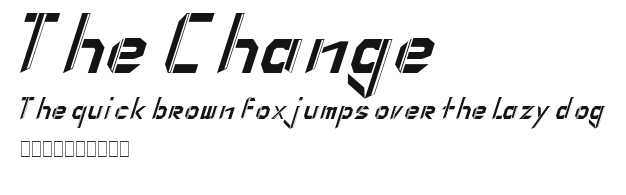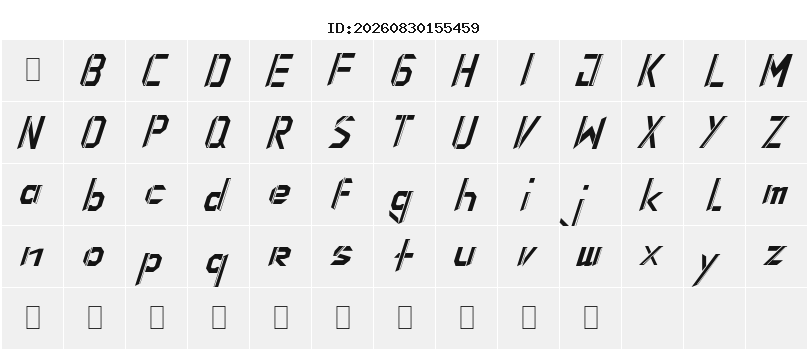
The Change Preview
• Font Name: The Change
• Font ID: The Change Italic:Version 1.00
• Full Font Name: The Change Italic
• Version: Version 1.00 April 14, 2016, initial release
• PostScript Name: TheChange-Italic
• Designer: Jorge Perez
• Manufacturer: LJ Design Studios
About The Change.ttf
The Change.ttf is a modern, elegant sans-serif font designed for ultimate readability and visual harmony. Perfect for branding, headlines, web design, and print materials.